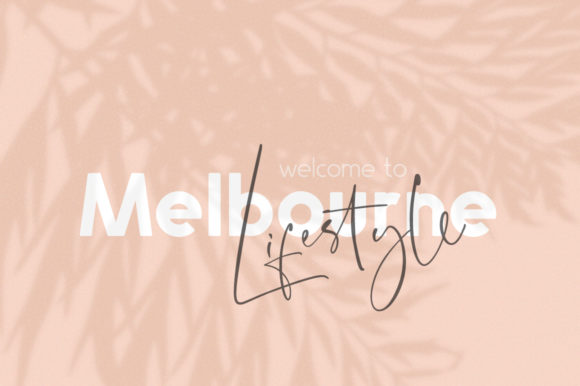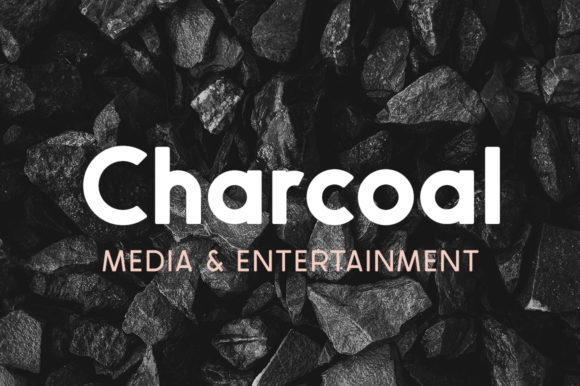
Avocado is a brand new font that includes three fabulous weights – Regular, thick and thin! They all work perfectly with each other and are the ideal accompaniment to scripts and serifs. Download this trio and see for yourself!